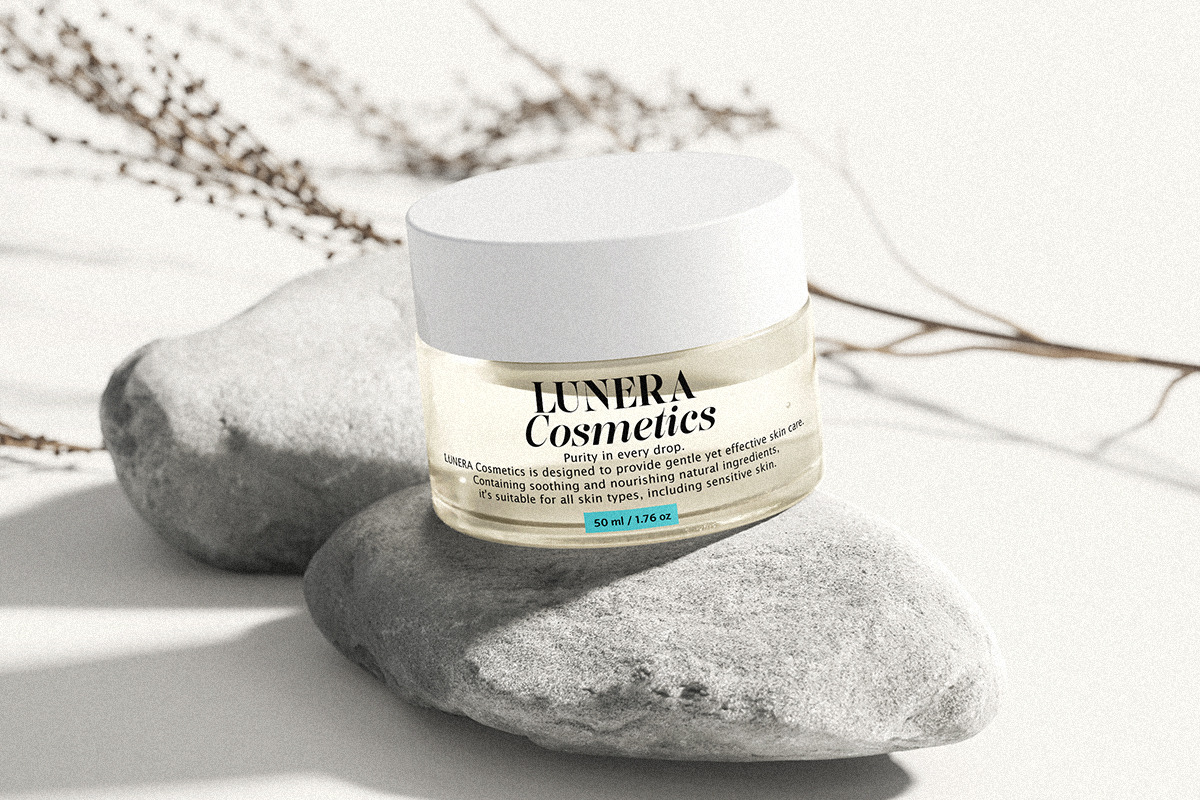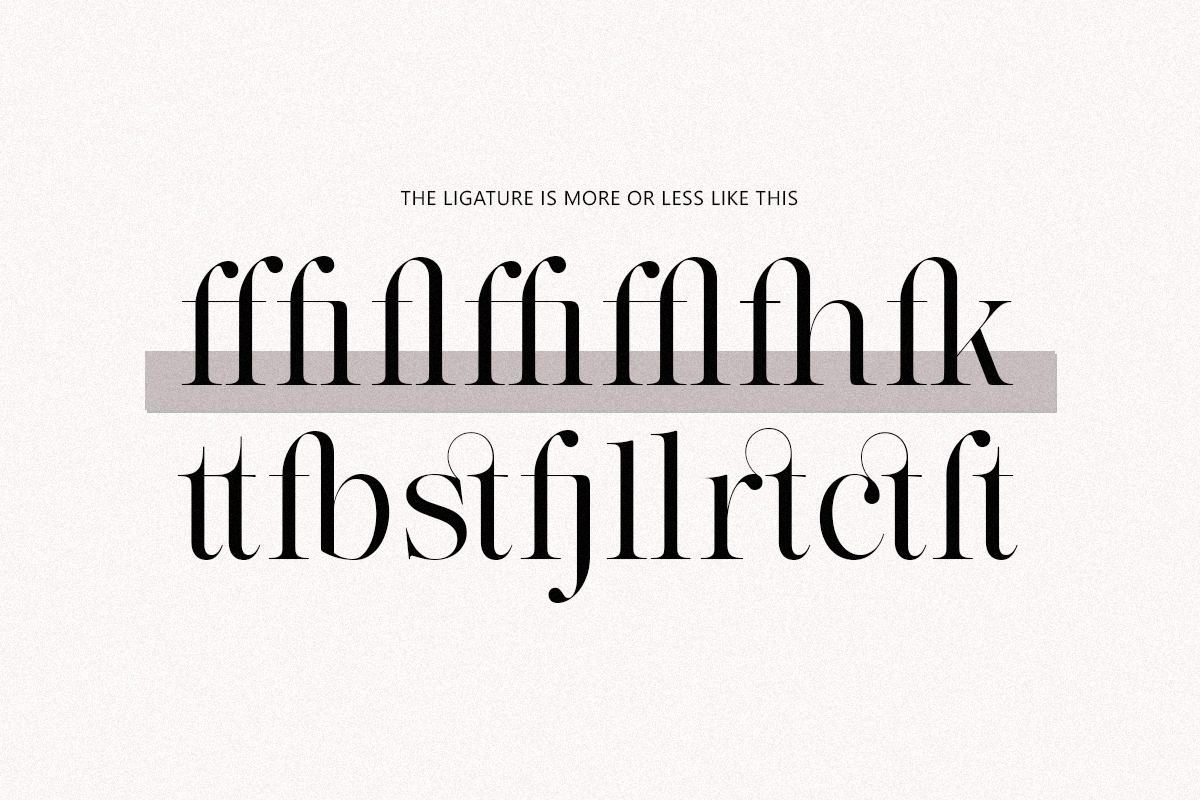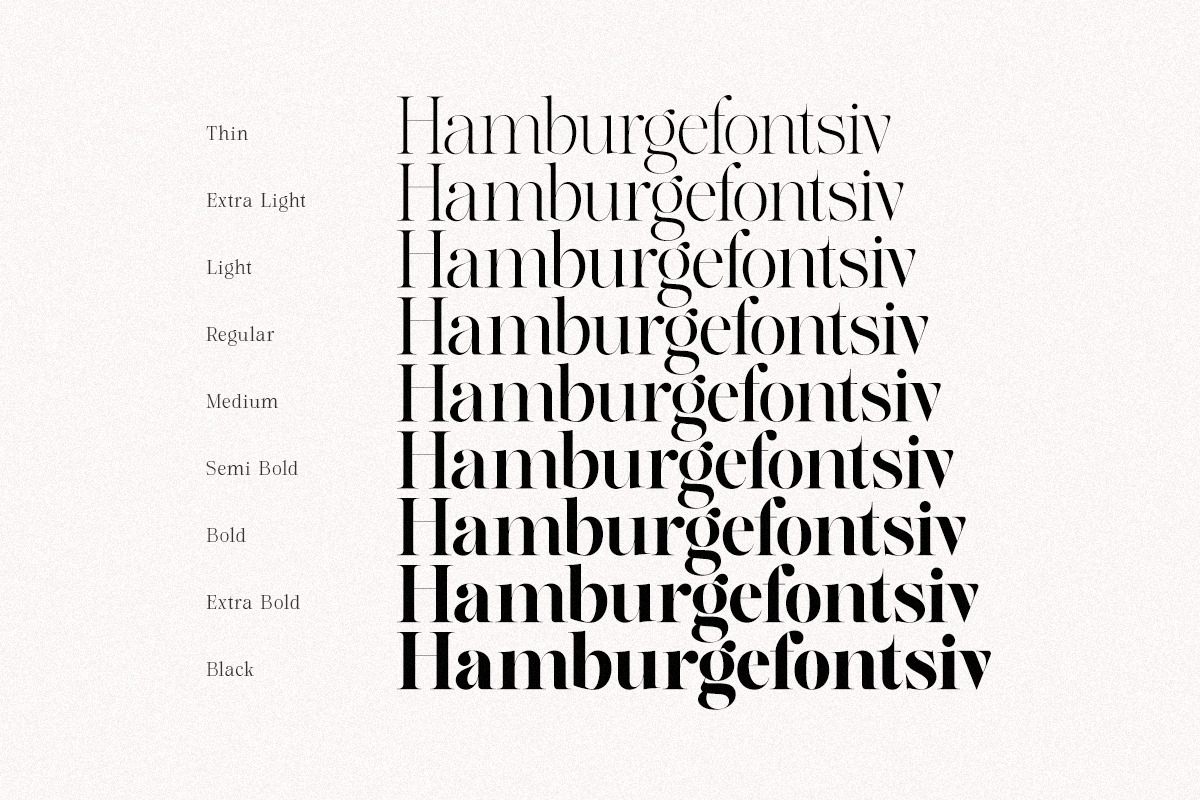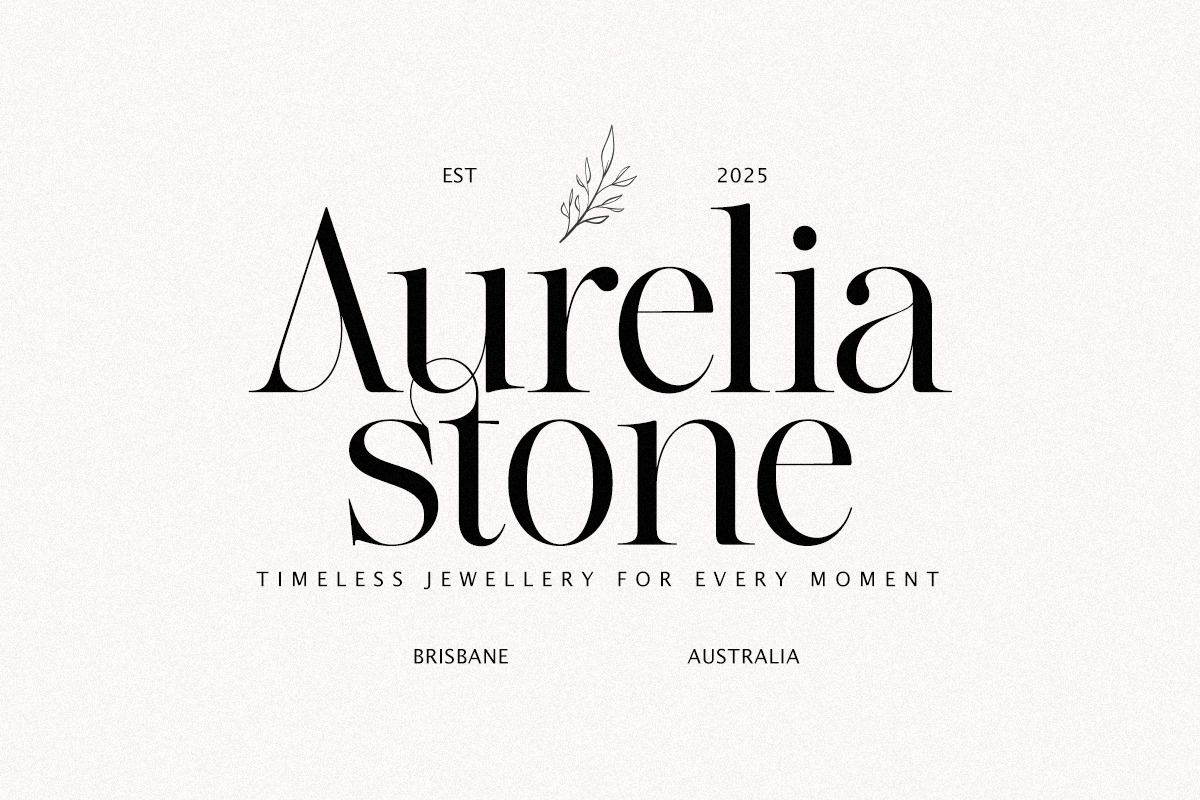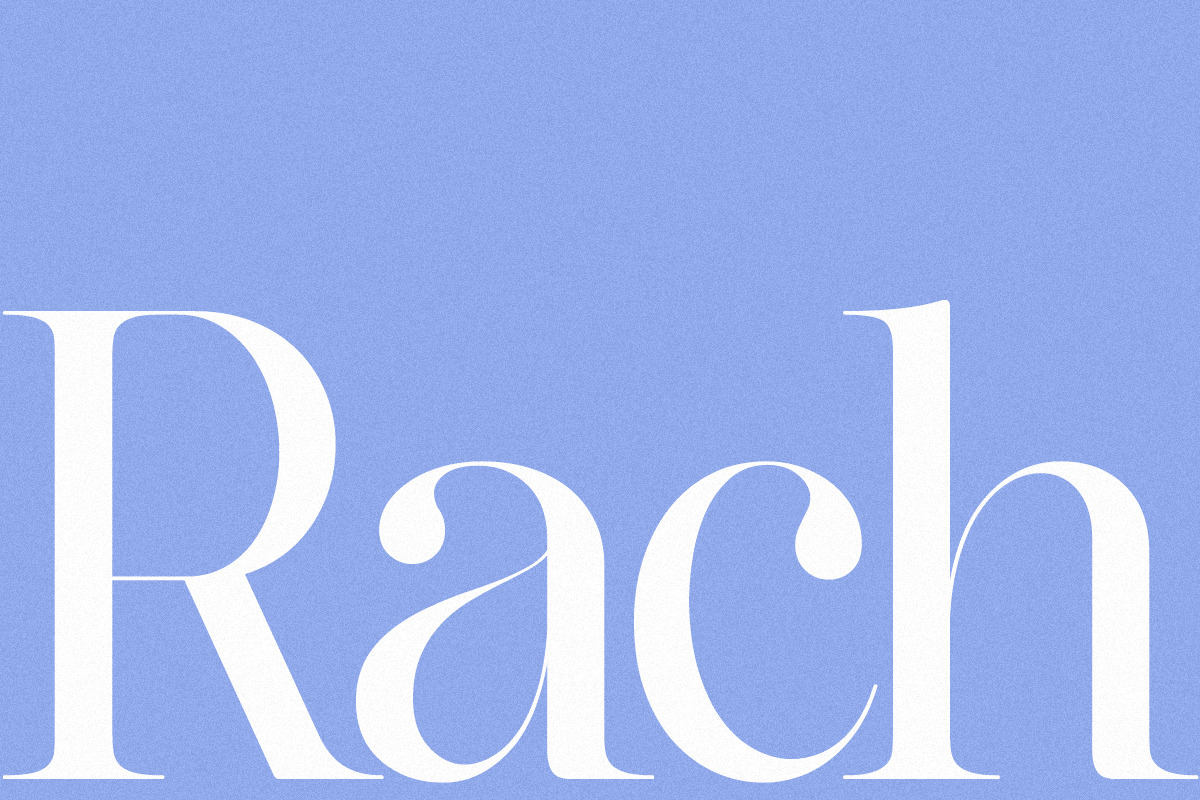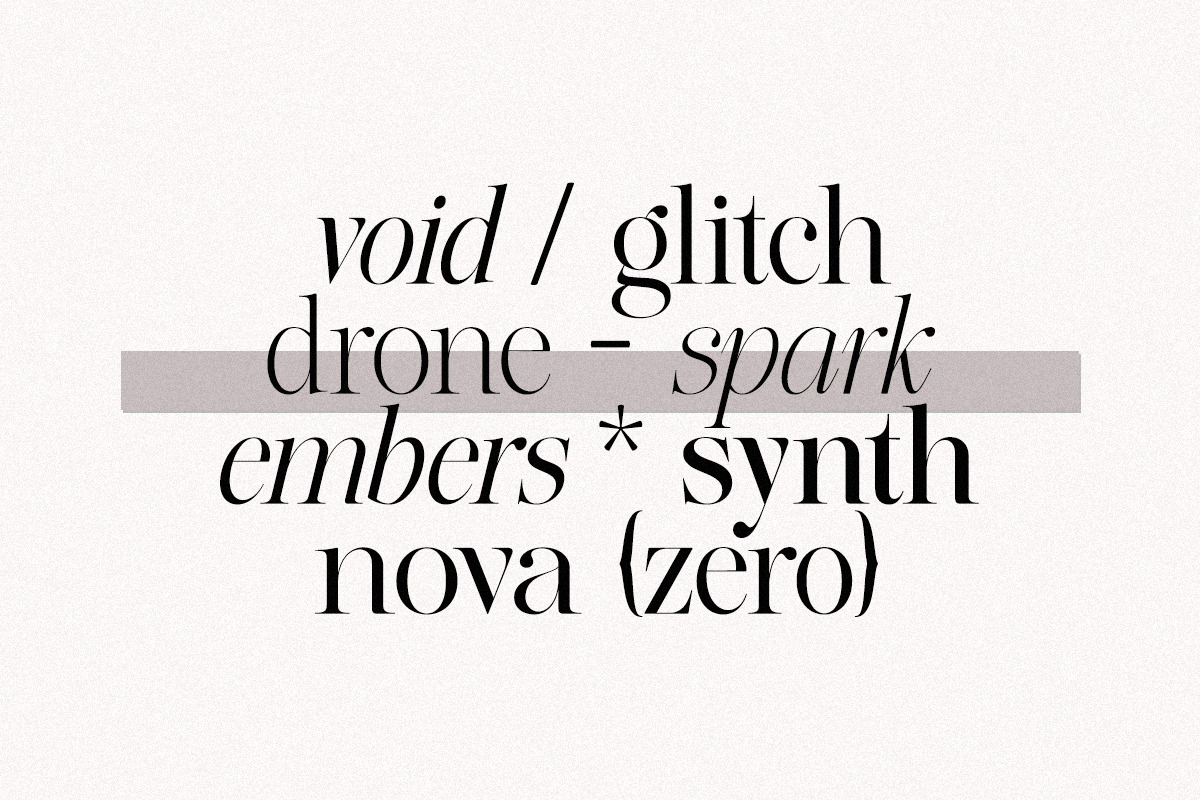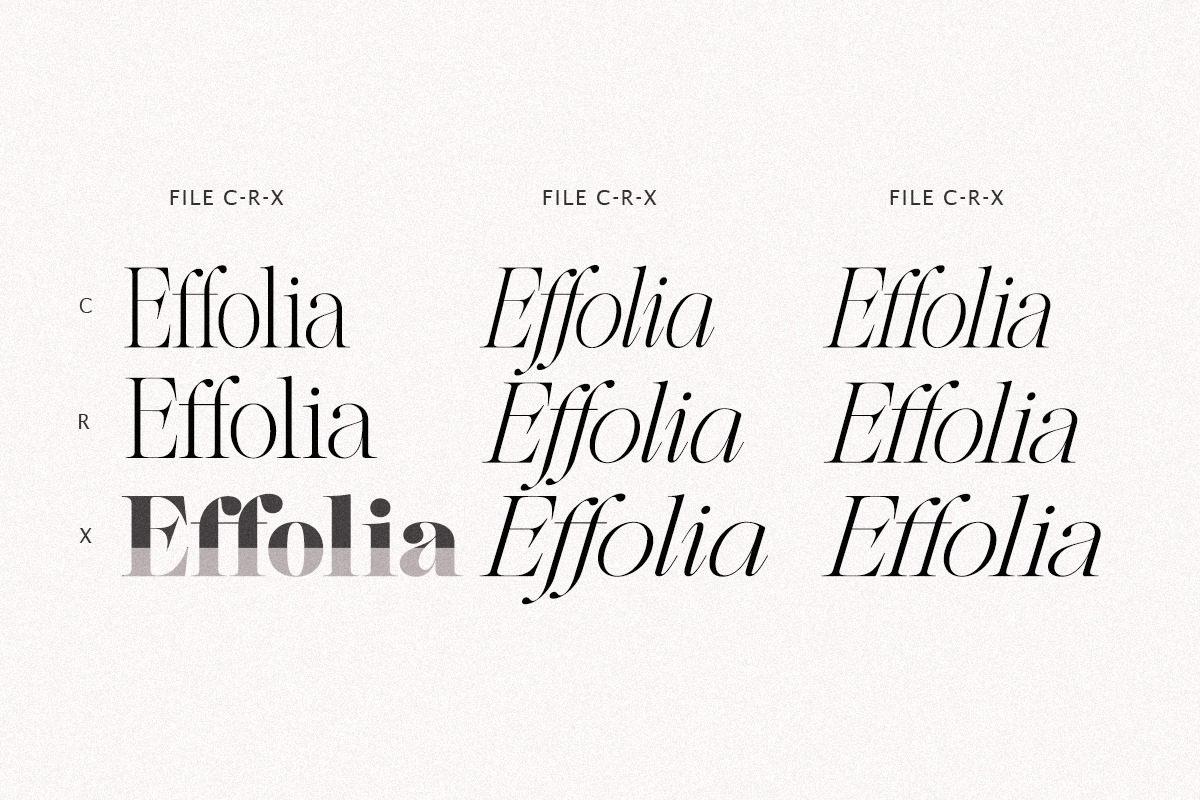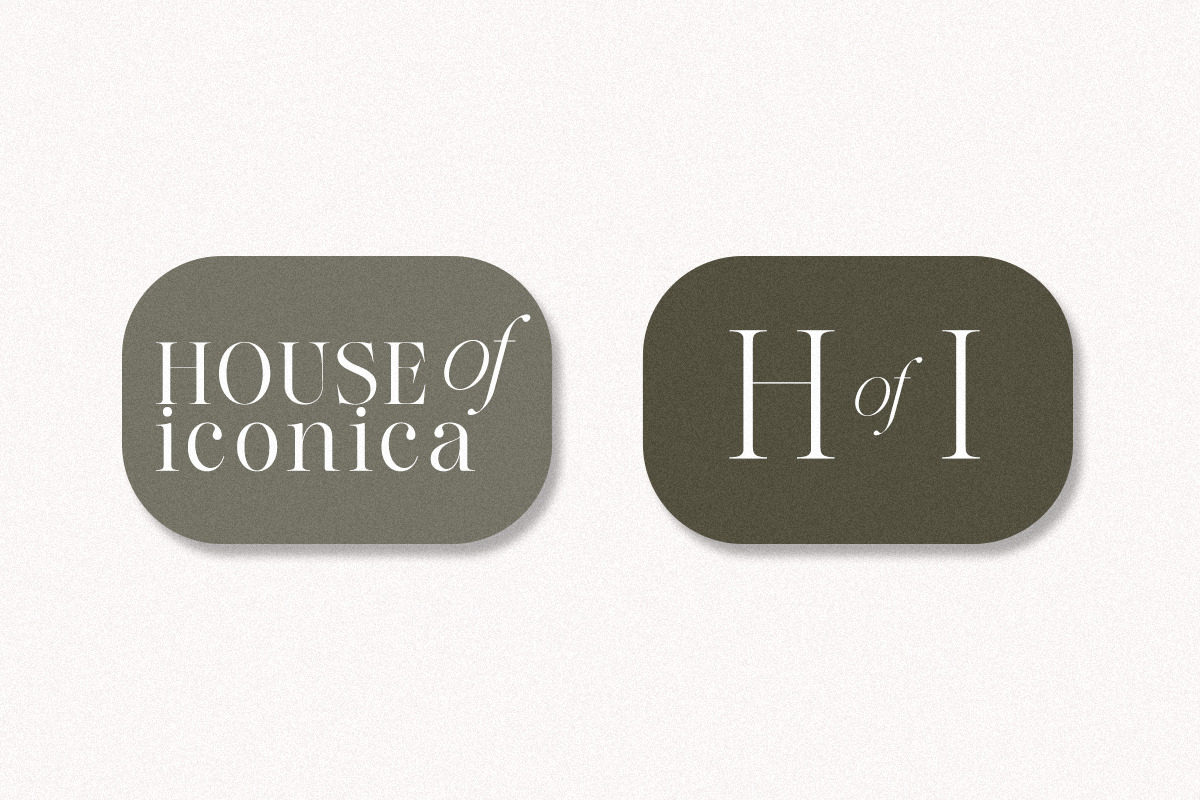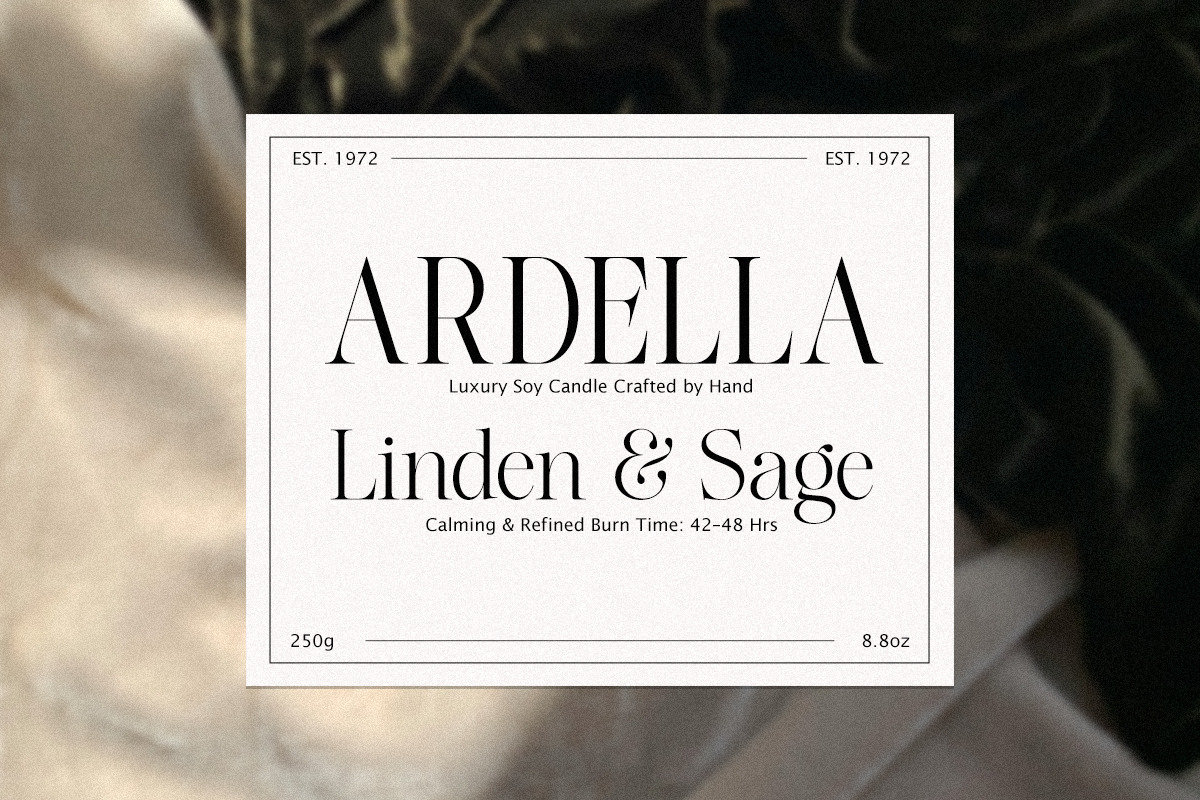
The Effolia | 9-Weight Classy Family
The Effolia — 9-Weight Classy Serif Family
Introducing The Effolia, an elegant and versatile serif family designed to bring timeless sophistication to modern typography.
Featuring 9 carefully crafted styles and 81 font files, The Effolia combines refined high-contrast strokes, graceful curves, and beautifully balanced proportions. Its sophisticated character makes it a perfect choice for fashion, editorial, luxury branding, beauty, packaging, and contemporary visual identities.
The family includes Regular, Expanded, Scale, Italic, Slant, and their corresponding variations, giving you the flexibility to create everything from elegant headlines and sophisticated logos to refined editorial layouts and stylish body text.
9 versatile family styles
High-contrast elegant serif design
True Italic styles
Expanded & Scale variations
Elegant ligatures
Suitable for both display and text applications
Luxury & Fashion Branding
Editorial & Magazine Design
Logos & Brand Identity
Beauty & Cosmetics
Wedding Invitations
Social Media & Content Design
Websites & Blogs
Posters & Advertising
Headlines & Display Typography
The Effolia brings together classic elegance and contemporary sophistication, giving your designs a distinctive typographic voice that feels both luxurious and timeless.